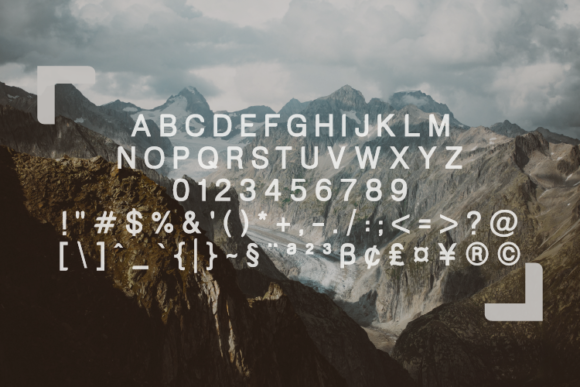
Alyza Font: The Ultimate Sans Serif for Modern Designs
In the world of typography, fonts play a crucial role in conveying the tone and personality of a design. For designers and crafters, finding the perfect font can be a daunting task. However, if you’re looking for a simple, casual, and clean sans serif font, look no further than Alyza Font. In this article, we’ll explore the features, benefits, and uses of Alyza Font, and why it’s an excellent choice for your next design project.
What is Alyza Font?
Alyza Font is a sans serif font that exudes a sense of simplicity and elegance. Its clean and beautiful arrangement of letters makes it perfect for a wide range of design applications. The font’s neat and organized structure ensures that it remains legible, even at smaller font sizes. Whether you’re working on a formal or non-formal design, Alyza Font is an excellent choice.
Key Features of Alyza Font
- Simple and Casual: Alyza Font has a straightforward and uncomplicated design, making it perfect for designs that require a clean and minimalist look.
- Clean Feel: The font’s clean lines and curves create a beautiful and elegant appearance that will elevate your designs.
- Neat Arrangement of Letters: The font’s letters are carefully crafted to ensure a harmonious and balanced look, making it perfect for body text and headings.
- Versatile: Alyza Font can be used in a wide range of design applications, from formal to non-formal, digital to print, and everything in between.
Benefits of Using Alyza Font
So, why choose Alyza Font for your next design project? Here are just a few benefits of using this amazing font:
- Improved Readability: Alyza Font’s clean design and legible letters ensure that your text is easy to read, even at smaller font sizes.
- Enhanced Aesthetics: The font’s beautiful arrangement of letters and clean lines will elevate the overall look of your design.
Use Cases for Alyza Font
Alyza Font is an incredibly versatile font that can be used in a wide range of design applications. Here are just a few examples:
- Digital Designs: Use Alyza Font in your website designs, social media graphics, and email marketing campaigns to create a clean and modern look.
- Print Designs: Alyza Font is perfect for print designs, such as brochures, flyers, and business cards.
- Branding: Use Alyza Font to create a consistent brand identity across all your marketing materials.
- Crafting: Alyza Font is also perfect for crafters who want to add a personal touch to their projects, such as handmade cards, scrapbooking, and DIY crafts.
In conclusion, Alyza Font is an excellent choice for designers and crafters who want a simple, casual, and clean sans serif font. Its neat and beautiful arrangement of letters makes it perfect for a wide range of design applications, from formal to non-formal. With its improved readability, enhanced aesthetics, and time-saving features, Alyza Font is a must-have font for any designer or crafter.